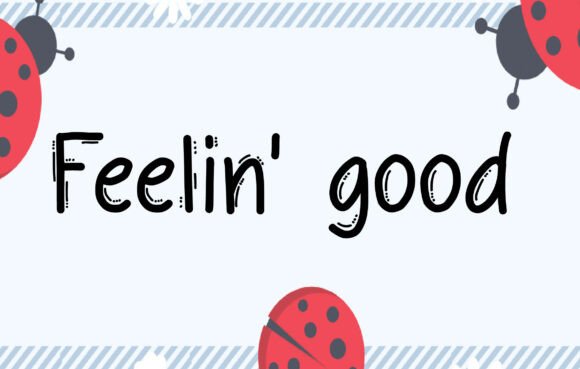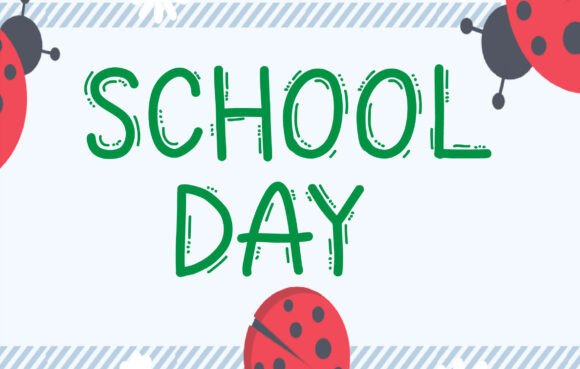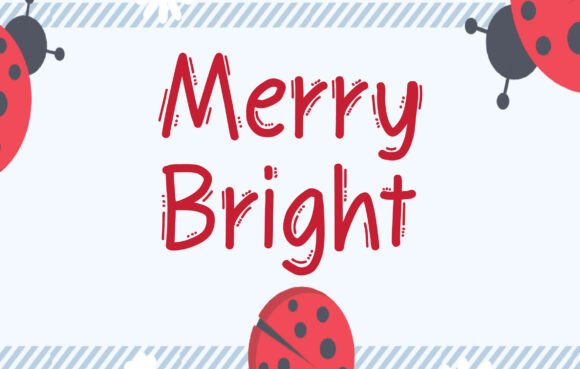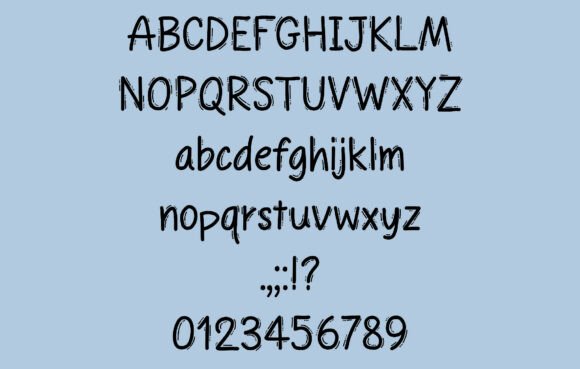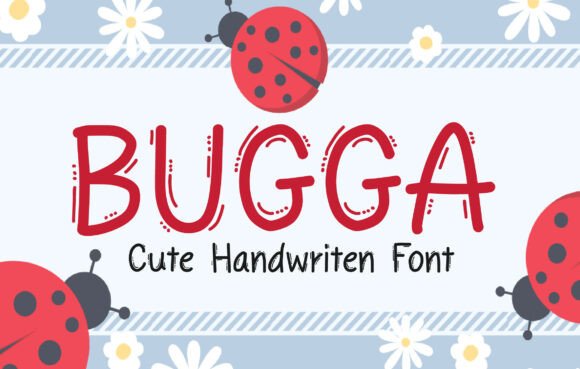
Introducing Bugga Font: The Perfect Blend of Modernity and Whimsy
In the world of typography, fonts play a crucial role in bringing a design to life. A well-chosen font can elevate the aesthetic appeal of a project, convey the right tone, and leave a lasting impression on the audience. If you’re a designer or crafter looking for a typeface that combines contemporary chic with a touch of playfulness, look no further than Bugga Font. In this article, we’ll delve into the unique features of Bugga, its versatility, and how it can add a dash of vivacity to your design projects.
The Story Behind Bugga Font
Bugga Font is a charming typeface that boasts a distinctive style, setting it apart from other fonts in the market. Its strokes mimic the authenticity of a hand-drawn touch, giving it a warm and inviting feel. The font’s design is a perfect blend of modernity and joviality, making it an excellent choice for designers who want to add a touch of personality to their work.
Key Features of Bugga Font
So, what makes Bugga Font so special? Here are some of its key features:
• Hand-drawn touch: Bugga’s strokes have a hand-drawn quality that gives it a unique and organic feel.
• Modernity and joviality: The font’s design combines modernity with a touch of playfulness, making it perfect for a wide range of design projects.
• Versatility: Bugga Font is a versatile typeface that can be used in various design applications, from digital media to print materials.
• Distinctive style: Bugga’s distinctive style sets it apart from other fonts, making it an excellent choice for designers who want to create standout designs.
Why Choose Bugga Font?
With so many fonts available in the market, why should you choose Bugga Font for your design projects? Here are some compelling reasons:
• Adds a touch of personality: Bugga Font’s unique design adds a touch of personality to your designs, making them more engaging and memorable.
• Elevates design quality: The font’s high-quality design elevates the overall aesthetic appeal of your projects, making them look more professional and polished.
• Suitable for various design applications: Bugga Font can be used in a wide range of design applications, from branding and advertising to packaging and web design.
How to Use Bugga Font in Your Design Projects
Now that you’ve fallen in love with Bugga Font, here’s how you can incorporate it into your design projects:
• Branding and advertising: Use Bugga Font to create eye-catching logos, posters, and advertisements that grab attention.
• Digital media: Bugga Font is perfect for digital media, including social media graphics, blog posts, and website designs.
• Print materials: The font can be used in print materials, such as brochures, flyers, and business cards, to add a touch of personality and whimsy.
• Crafting and DIY projects: Bugga Font can also be used in crafting and DIY projects, such as handmade cards, gift tags, and scrapbooking.
Font Name Bugga Font
Author Digital NT Studio
In conclusion, Bugga Font is a charming typeface that combines modernity with a touch of playfulness. Its hand-drawn strokes, distinctive style, and versatility make it an excellent choice for designers and crafters looking to add a dash of vivacity to their design projects. Whether you’re working on a branding project, digital media, or print materials, Bugga Font is sure to elevate the quality of your designs and make them stand out from the crowd.